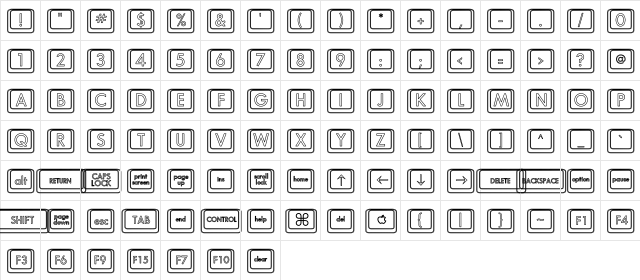
Keyboard KeysHo Hollow Regular
Design Context for Keyboard KeysHo Hollow Typeface
Keyboard KeysHo Hollow offers clean, dependable letterforms without strong stylistic allegiance, making it a practical choice for designers who need flexibility.